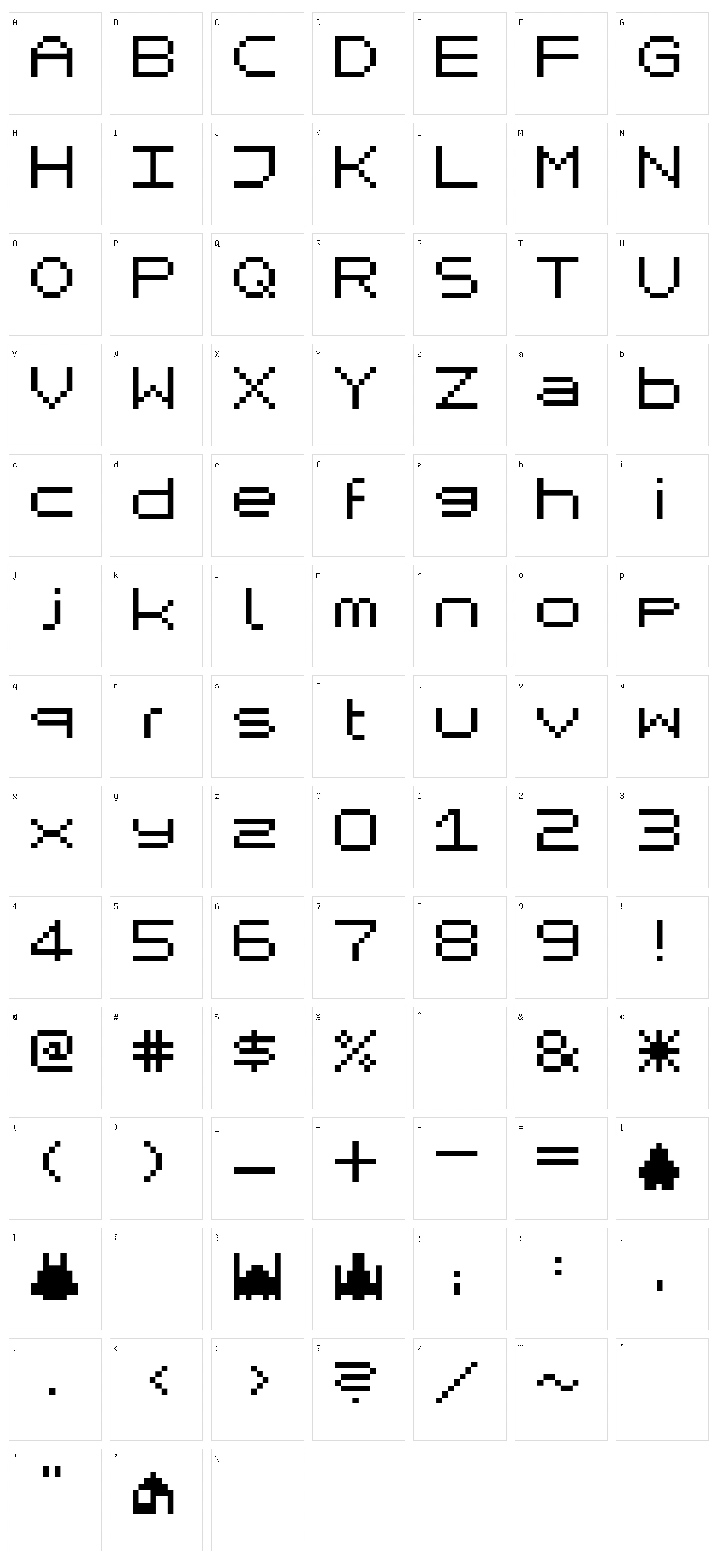
Mikrokomputer
Designed by: Augenbluten / ITF
Mikrokomputer ist ein Font dessen Charaktere auf einem Raster
von 7x7 Pixeln bestehen.
Die Schnitte "Closed", "Regular" und "WideOpen" bezeichnen
die Gršsse der AbstŠnde zwischen den Pixeln der Matrix, auf der
die Buchstaben basieren.
Zu jedem dieser drei Schriftschnitte gehšrt eine MonotypeVariante,
in der alle Buchstaben die gleiche Breite aufweisen.
Mikrokomputer enthŠlt ausserdem viele Spacemonster,
Raumschiffe, Waffen, Kreise, Ecken, Dingbats etc,
die man durch Experimentieren mit der "alt-" Taste finden kann.
Einen kompletten Satz der original SPACE INVADERS -Figuren
in den drei Schnitten "Closed", "Regular" und "WideOpen"
enthŠlt Mikrokomputer-SpaceInvaders.
Auf den Tasten "q" bis "+" (Closed), "a" bis "#" (Regular)
Mikrokomputer startete am 27.01.1998. Diese Ÿberarbeitete Version
erschien am 04.07.2001
Mikrokomputer is a font whose characters base on a matrix of
7x7 pixels.
The three cuts "Closed", "Regular" and "WideOpen" indicate the
spacing between the pixels of the matrix the letters are based on.
Each of these cuts has a corresponding monospaced cut.
What makes Mikrokomputer so cool though are the Aliens,
Spaceships, Weapons, Corners, Dingbats etc, that you can find
using the alt(option)-key.
Mikrokomputer-SpaceInvaders contains all the original
SPACE INVADERS -characters (as featured in the
Atari Video Computer Systemª) in the three styles "Closed",
"Regular" and "WideOpen" They are assigned to the keys
"q" to "+" (Closed), "a" to "#" (Regular) and "y" to "-" (WideOpen).
This Version of Mikrokomputer starts on Tuesday 27.01.1998
relaunched on 04.07.2001